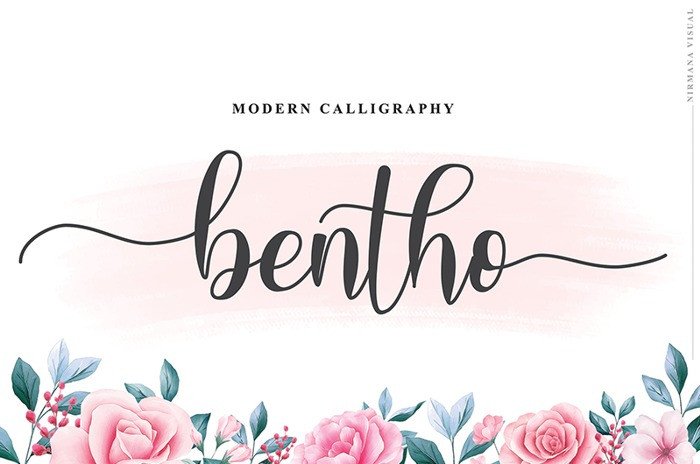
Bentho Calligraphy Font
Introducing the elegant new Bentho Calligraphy Font! For those of you who are needing a touch of elegance and modernity for your designs, this font was created for you!
Bentho was built with OpenType features and includes beginning and ending swashes, alternate swash characters for most lowercase letters, numbers, punctuation, alternates, ligatures and it also supports other languages.